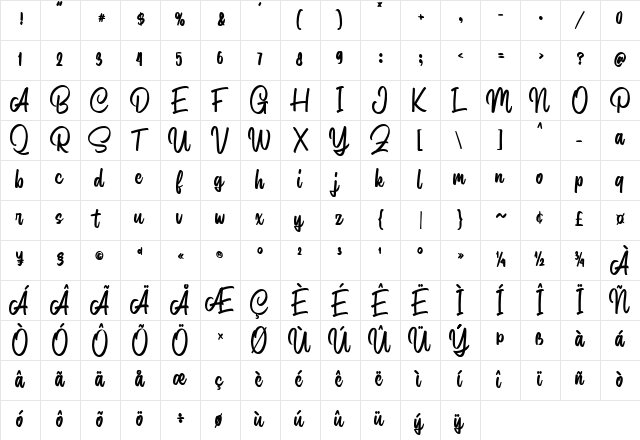
Pathita Script Regular
Design Context for Pathita Script Typeface
Pathita Script brings a calligraphic fluidity to the page — its connecting strokes and expressive curves give it an unmistakably human quality.